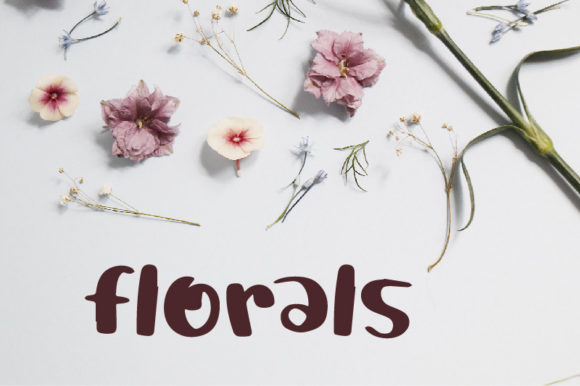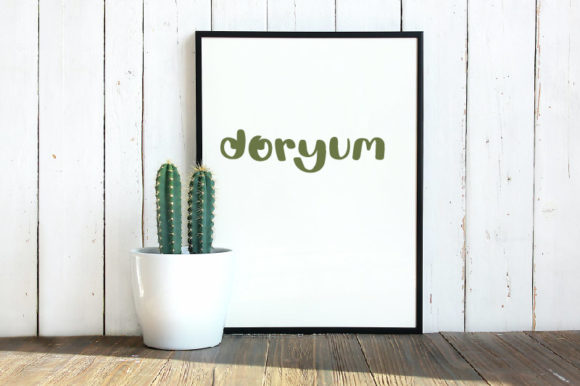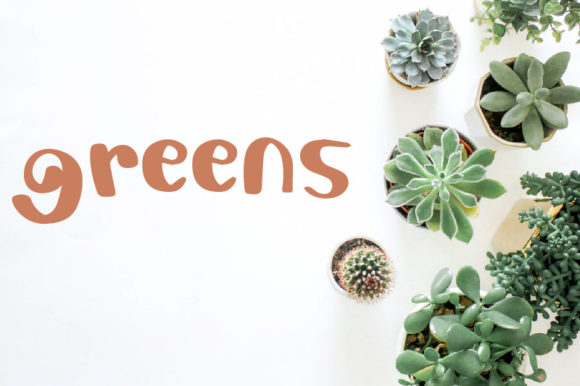
Bogopud Font: The Ultimate Display Font for Designers and Crafters
In the world of typography, a good font can make all the difference in the success of a design project. For designers and crafters looking for a bold and eye-catching display font, Bogopud is an excellent choice. This carefully handcrafted font is designed to be a true favorite among designers, and its casual charm makes it perfect for a wide range of applications.
The Characteristics of Bogopud Font
Bogopud is a bold display font that exudes a sense of casual charm, making it appear wonderfully down-to-earth and readable. Its unique design makes it incredibly versatile, allowing it to be used in a variety of contexts. Whether you’re looking to create a standalone headline or add some visual interest to a busy background, Bogopud is the perfect choice.
One of the standout features of Bogopud is its bold and eye-catching design. The font’s thick lines and carefully crafted letterforms make it perfect for grabbing the attention of your audience. At the same time, its casual charm ensures that it doesn’t come across as too formal or intimidating, making it suitable for a wide range of design projects.
The Benefits of Using Bogopud Font
So why should designers and crafters choose Bogopud for their next project? Here are just a few benefits of using this amazing display font:
- Versatility: Bogopud is incredibly versatile, making it suitable for a wide range of design projects. Whether you’re working on a logo, brochure, or website, this font is sure to make a statement.
- Readability: Despite its bold design, Bogopud is incredibly readable, even at smaller sizes. This makes it perfect for use in body text or as a headline.
- Uniqueness: Bogopud’s unique design sets it apart from other display fonts on the market. Its casual charm and bold lines make it a true standout.
How to Use Bogopud Font in Your Design Projects
So how can you use Bogopud in your design projects? Here are a few ideas to get you started:
- Headlines: Use Bogopud as a headline font to grab the attention of your audience. Its bold design and casual charm make it perfect for use in titles and headings.
- Logos: Bogopud’s unique design makes it a great choice for logos. Its bold lines and carefully crafted letterforms make it perfect for creating a memorable brand identity.
- Posters and Flyers: Bogopud is a great choice for posters and flyers. Its bold design and readability make it perfect for use in eye-catching headlines and titles.
Tips for Pairing Bogopud with Other Fonts
When using Bogopud in your design projects, it’s often a good idea to pair it with other fonts to create visual interest. Here are a few tips for pairing Bogopud with other fonts:
- Contrast: Pair Bogopud with a font that has a contrasting style, such as a serif or script font. This will create visual interest and add depth to your design.
- Similarity: Pair Bogopud with a font that has a similar style, such as another bold display font. This will create a cohesive look and feel.
- Hierarchy: Use Bogopud as a headline font and pair it with a smaller font for body text. This will create a clear hierarchy and make your design more readable.
In conclusion, Bogopud is an excellent choice for designers and crafters looking for a bold and eye-catching display font. Its casual charm, bold design, and readability make it perfect for a wide range of design projects. Whether you’re working on a logo, brochure, or website, Bogopud is sure to make a statement. So why not give it a try and see the difference it can make in your next design project?